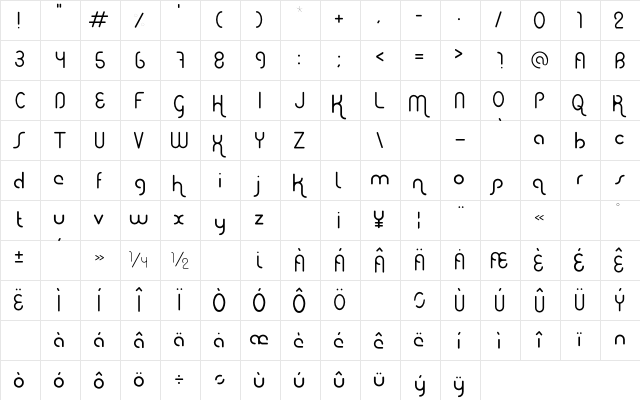
Elephont Regular
| Designer | Lene M. Arensdorff Kristiansen |
Design Context for Elephont Typeface
Elephont takes a measured approach to typography — its balanced proportions and neutral character make it a reliable workhorse for both digital and print work.